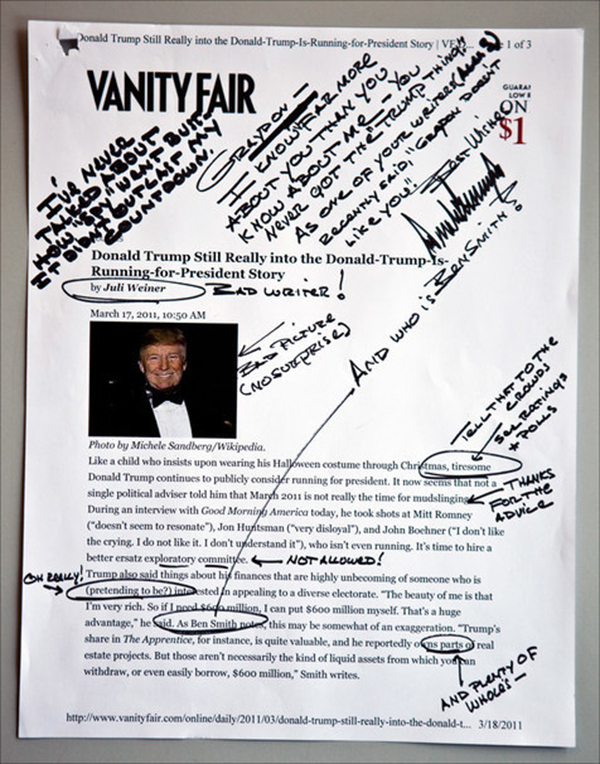
Buzzfeed's new typeface will be your new most hated font
Trump-influenced BF Tiny Hand typeface could be even more despised than Comic Sans.
The distinctive handwriting of Donald Trump can now be used by designers and art directors thanks to a recently released typeset courtesy of Buzzfeed and Font Bureau. Named after an insult that has haunted Trump over the years, the Tiny Hand font is based on the diagonal, capitalised notes handwritten by the Republican candidate on various notes and memos.
Having studied the chunky, almost comical lettering of Donald Trump closely, typographer Mark Davis set about digitising the handwriting so it could be downloaded used by designers. Thanks to the wide range of source material, Davis has also been able to create variants for many of the characters.
Due to its eerie attempt of recreating a human style, Buzzfeed have said that Tiny Hand is set to become the next Comic Sans. But while the font is sure to irritate Trump himself, at least the rest of us can have fun writing satirical scribblings in his handwriting. So if you want to make you typography great again, download Tiny Hand here for free.